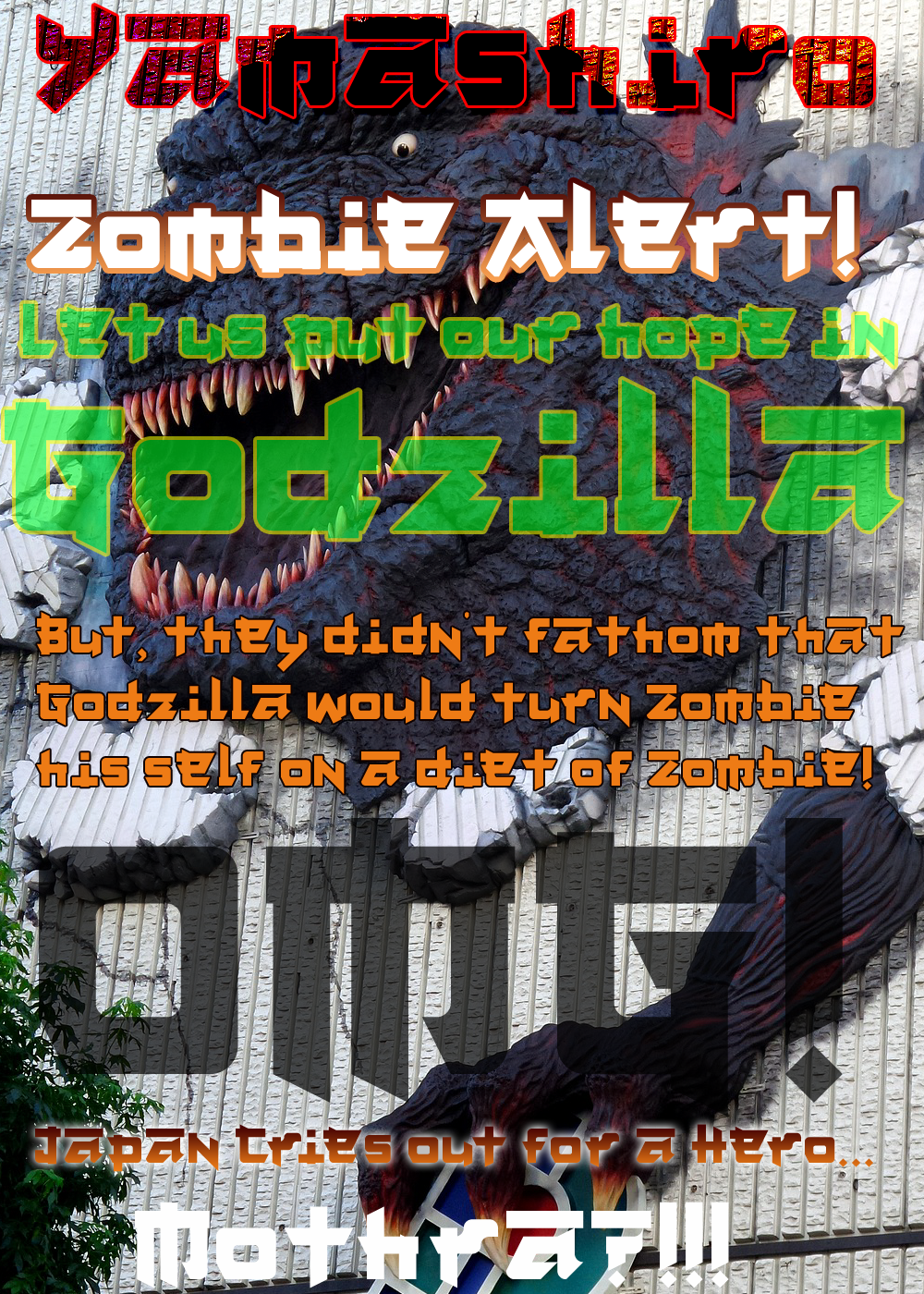
I saw an A in Blender that I really liked, so I created a font that I thought might match it.This Font Software is licensed under the SIL Open Font License, Version 1.1. Therefore, this font can be used for personal or commercial projects, and even as a web font (#webfont ). Additionally, this font can be studied and even modified and rereleased under a new font name, with the same SIL Open Font License.